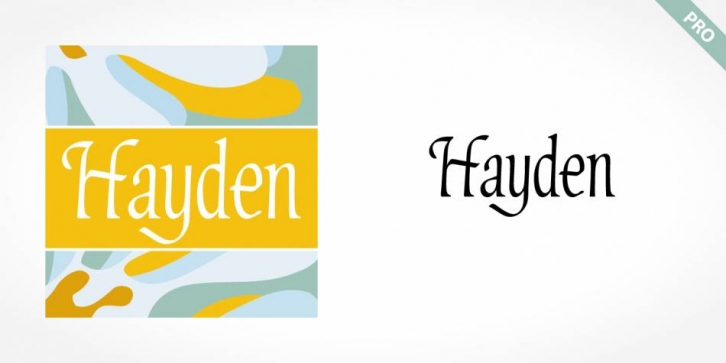
Hayden Pro is a historical font published by SoftMaker.
Hayden Pro font is the work of British designer Martin Wait, an understated calligraphic typeface with its own unique look. The capitals should be used as initials and both they and the lowercase forms are condensed. Hayden Pro is a legible and refined font perfect for anything requiring an elegant, upscale look.